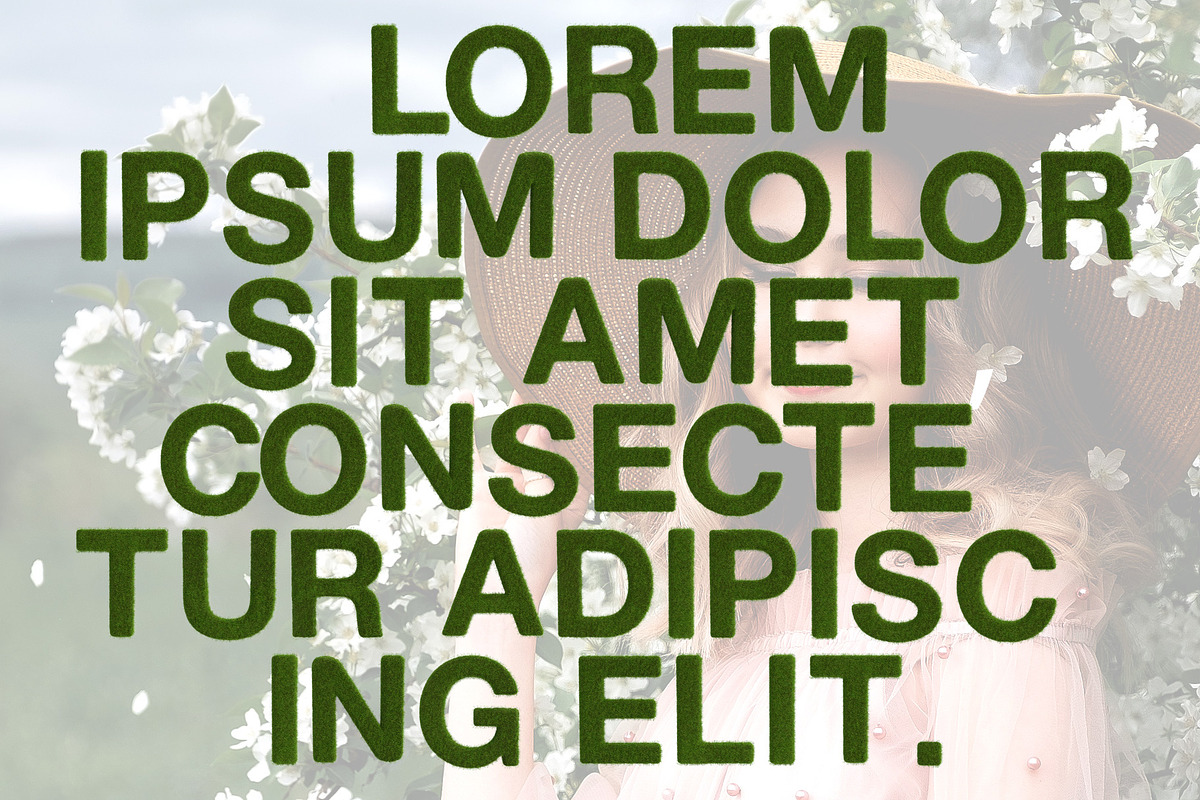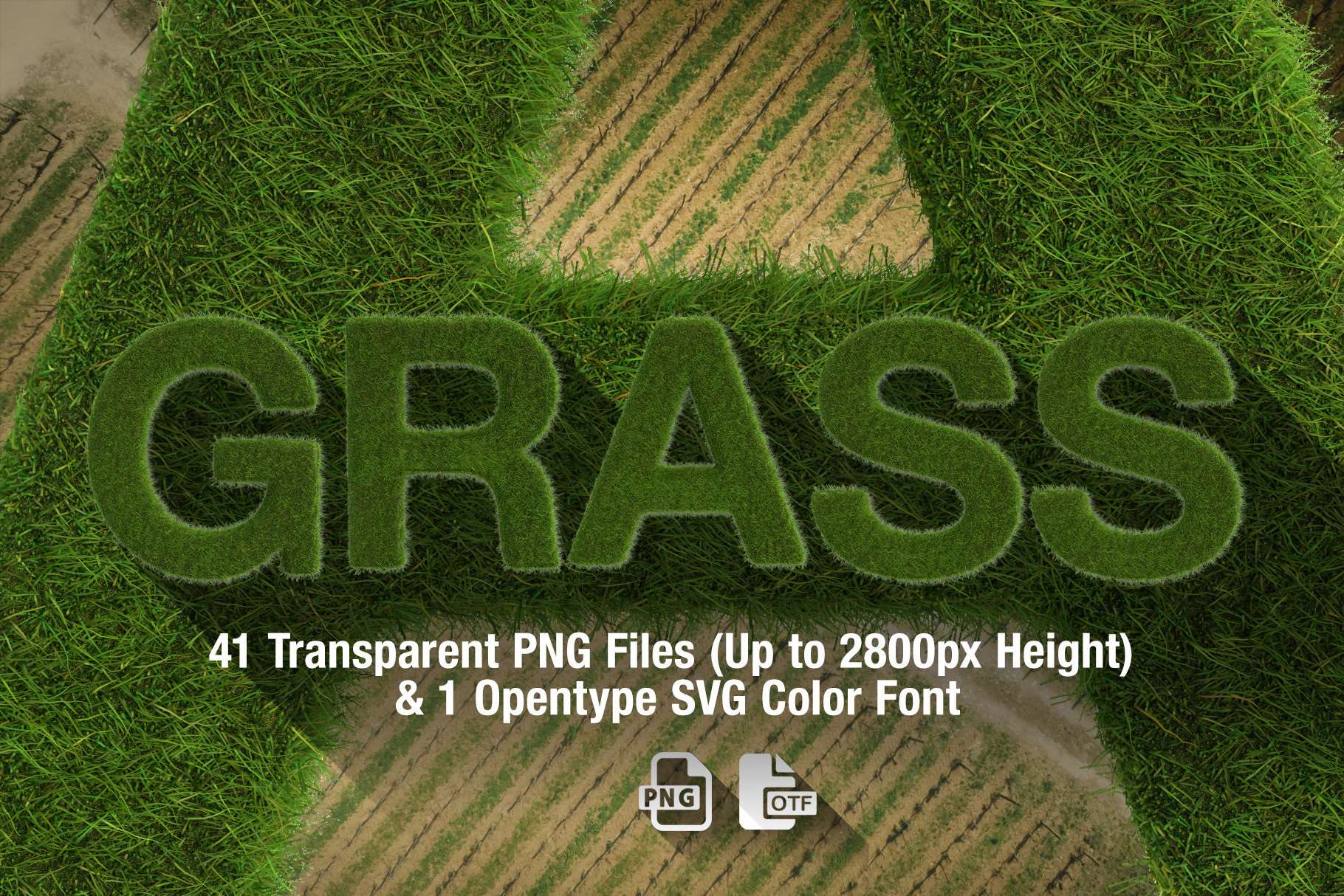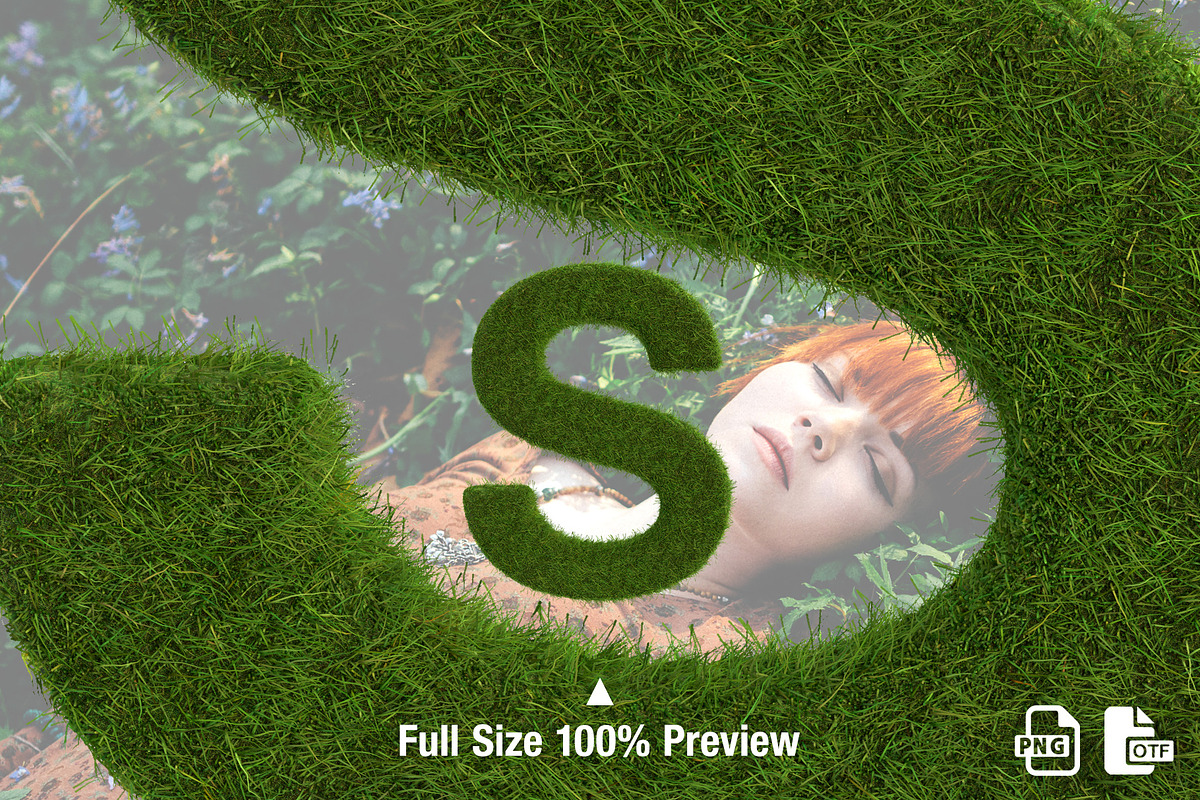
Ms Grass Bitmap Font & PNGs
MS Grass Opentype SVG Bitmap-Color Font and PNG Files
Each letter is modelled and rendered in a 3D Application, also converted into an Opentype SVG (Color Font)
- Basic western uppercase letters
- Basic Punctuation and Symbols